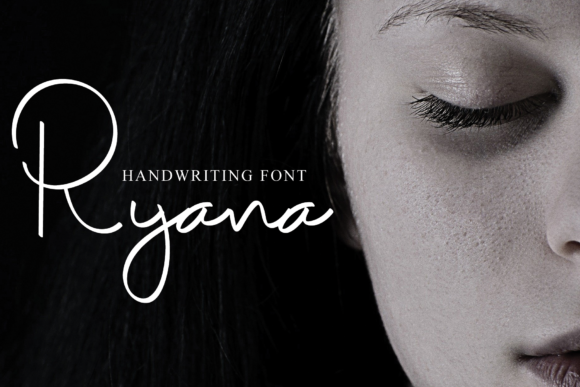
Introducing Ryana Font: The Ultimate Fashionable and Relaxed Script Font
Are you looking for a font that can elevate your creative projects to the next level? Look no further than Ryana Font, a beautifully crafted and highly detailed script font that is perfect for adding a touch of elegance and sophistication to any design. In this article, we’ll take a closer look at Ryana Font, its features, and why it’s a must-have for any designer or creative looking to enhance their font library.
What is Ryana Font?
Ryana Font is a fashionable and relaxed script font that is designed to add a touch of style and glamour to any project. Whether you’re working on a branding campaign, a website design, or a marketing material, Ryana Font is the perfect choice. Its neat and highly detailed design makes it easy to read and understand, making it perfect for a wide range of applications.
Ryana Font is a script font that is inspired by the elegance and sophistication of traditional calligraphy. Its flowing lines and curves give it a relaxed and effortless feel, making it perfect for designs that require a touch of personality and flair.
Key Features of Ryana Font
So, what makes Ryana Font so special? Here are some of its key features:
- Fashionable and Relaxed Design: Ryana Font has a unique and stylish design that is perfect for adding a touch of elegance to any project.
- Highly Detailed: The font is highly detailed, making it easy to read and understand.
- Neatly Crafted: Ryana Font is neatly crafted, making it perfect for a wide range of applications.
- Versatile: The font is versatile and can be used for a wide range of projects, from branding and advertising to website design and marketing materials.
Why Choose Ryana Font?
So, why should you choose Ryana Font for your next project? Here are some reasons:
- Elegance and Sophistication: Ryana Font adds a touch of elegance and sophistication to any design, making it perfect for high-end brands and luxury products.
- Readability: The font is highly readable, making it perfect for body text and headlines.
- Flexibility: Ryana Font can be used for a wide range of projects, from digital to print.
- Unique Design: The font has a unique design that sets it apart from other script fonts.
How to Use Ryana Font
Using Ryana Font is easy. Here are some tips:
- Pair it with Other Fonts: Ryana Font can be paired with other fonts to create a unique and stylish design.
- Use it for Headlines and Body Text: The font can be used for both headlines and body text, making it perfect for a wide range of applications.
- Experiment with Different Colors and Sizes: Ryana Font can be used in different colors and sizes to create a unique and stylish design.
Ryana Font in Graphic Design
Ryana Font is a versatile font that can be used in a wide range of graphic design projects. Here are some ideas:
- Branding and Logo Design: Ryana Font can be used to create a unique and stylish logo that reflects a brand’s personality and values.
- Advertising and Marketing Materials: The font can be used for advertising and marketing materials, such as brochures, flyers, and posters.
- Website Design: Ryana Font can be used for website design, adding a touch of elegance and sophistication to any website.
Ryana Font in Digital Design
Ryana Font is not just limited to graphic design. It can also be used in digital design projects, such as:
- Social Media Graphics: Ryana Font can be used to create stylish and engaging social media graphics.
- Email Marketing: The font can be used for email marketing campaigns, adding a touch of elegance and sophistication to any email.
- Digital Advertising: Ryana Font can be used for digital advertising, such as display ads and native ads.
In conclusion, Ryana Font is a fashionable and relaxed script font that is perfect for adding a touch of elegance and sophistication to any design. Its highly detailed and neatly crafted design makes it easy to read and understand, making it perfect for a wide range of applications. Whether you’re a designer, a creative, or a business owner, Ryana Font is a must-have for any font library.
- What is Ryana Font?: Ryana Font is a fashionable and relaxed script font.
Ryana Font Specifications
- Font Family: Ryana
- Font Style: Script
- Font Weight: Regular